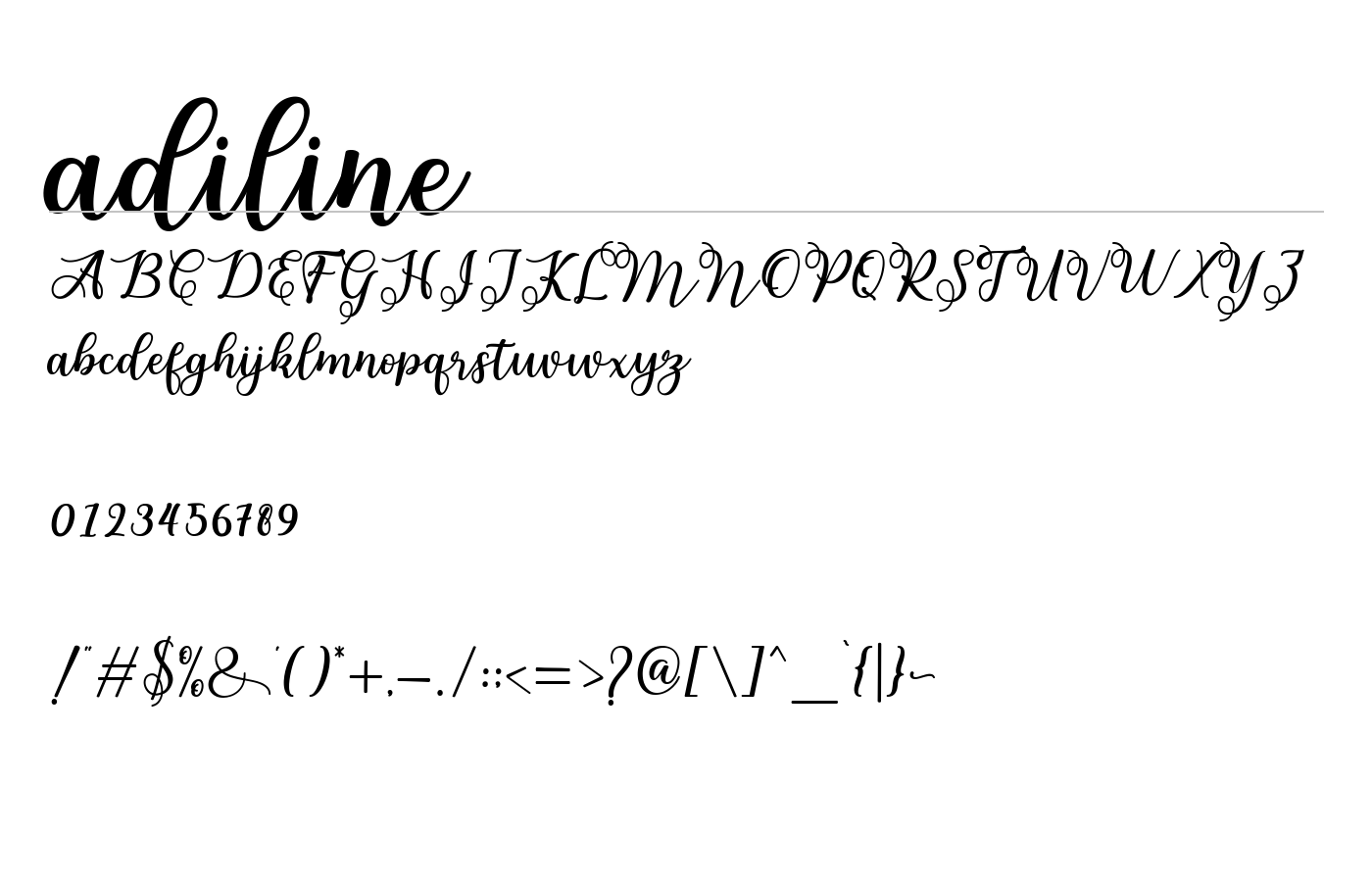
Adiline is an elegant script font characterized by its smooth, flowing strokes and delicate, calligraphic style. It features a medium weight with high contrast between thin and thick lines, rounded letterforms, and ornate uppercase characters that add a sophisticated and graceful touch. This font is perfect for invitations, branding, and any design that seeks a refined, feminine, and artistic feel.
adiline Font
About adiline Font
| Designer | Bexxtype/Syahputra |